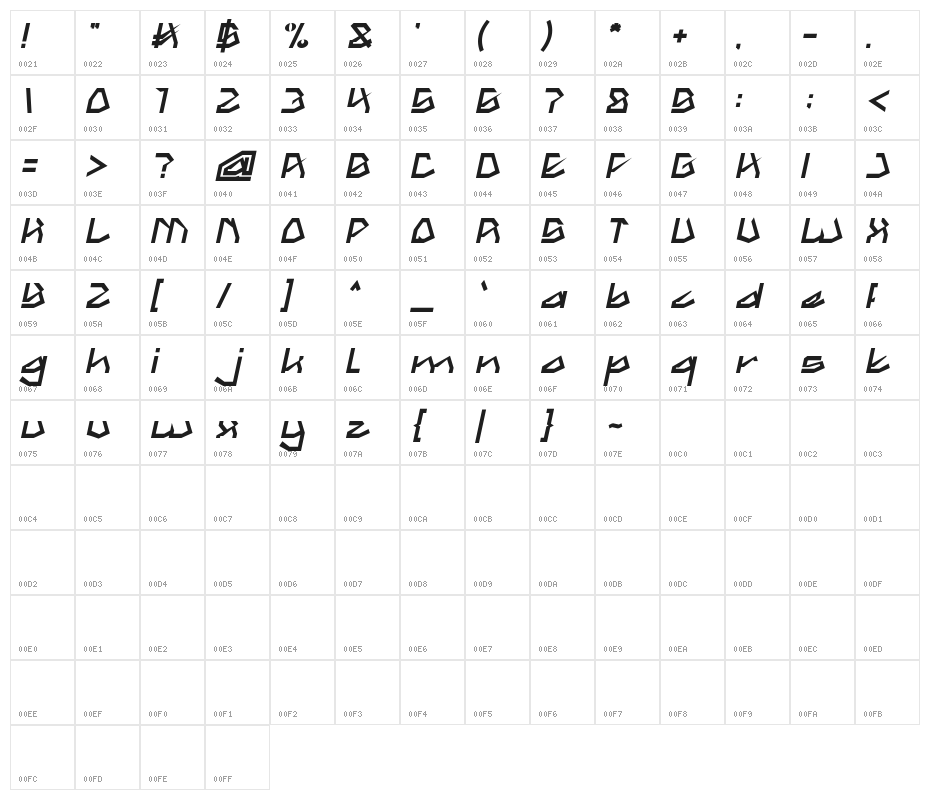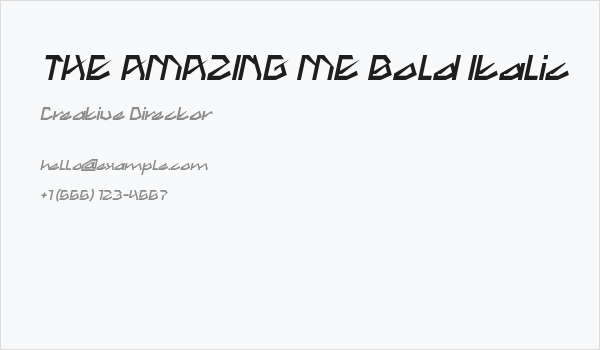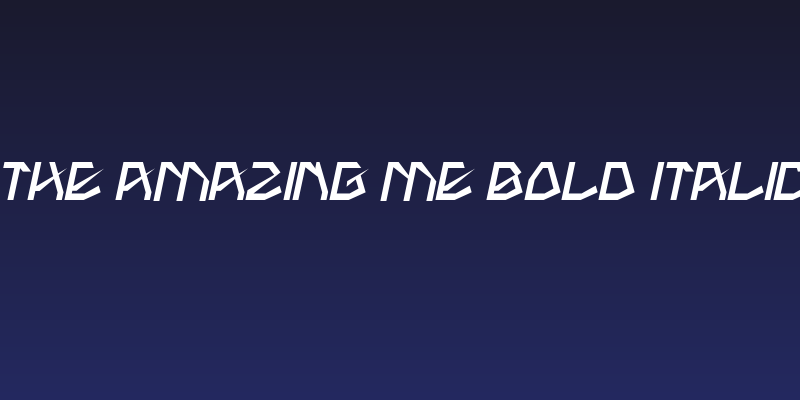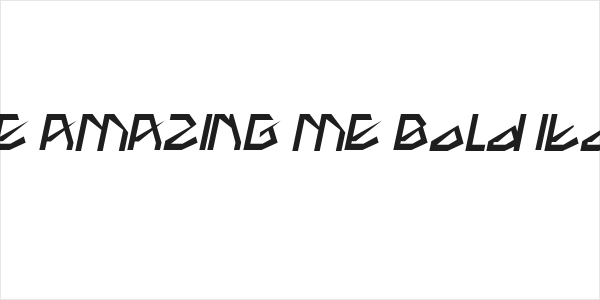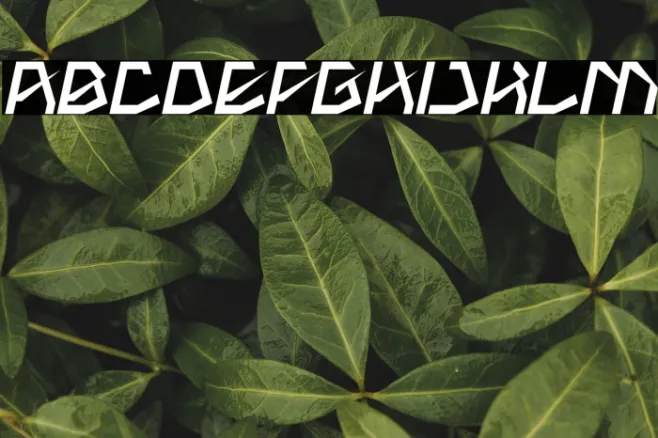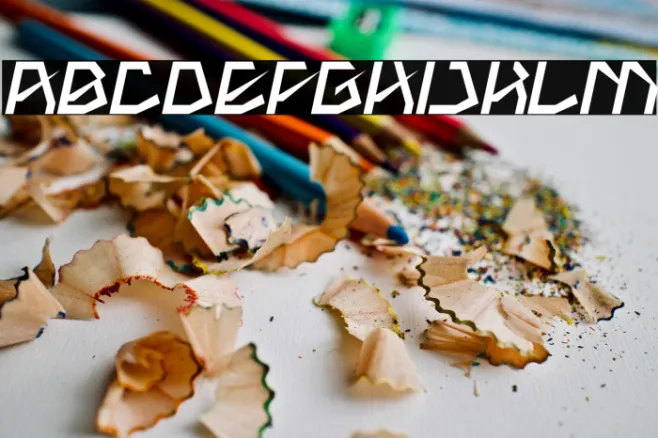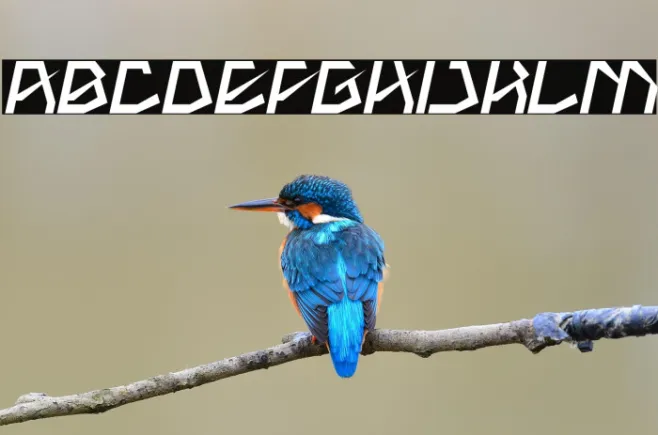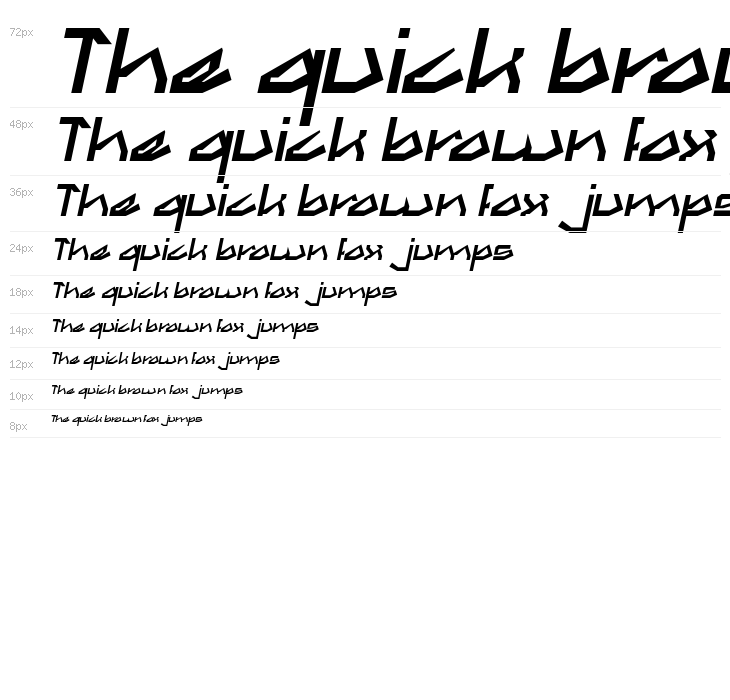
THE AMAZING ME Bold Italic Font
THE AMAZING ME Bold Italic Description
This font features a bold and italicized style with a distinctly angular and geometric design. The characters are crafted with sharp edges and dynamic slants, giving it a futuristic and edgy appearance. The uppercase and lowercase letters maintain a consistent angular theme, while the numbers and special characters follow suit with a cohesive design. The overall look is striking and modern, making it suitable for attention-grabbing headlines or creative projects that require a bold statement. The font's unique style is both artistic and functional, offering versatility in various design contexts.